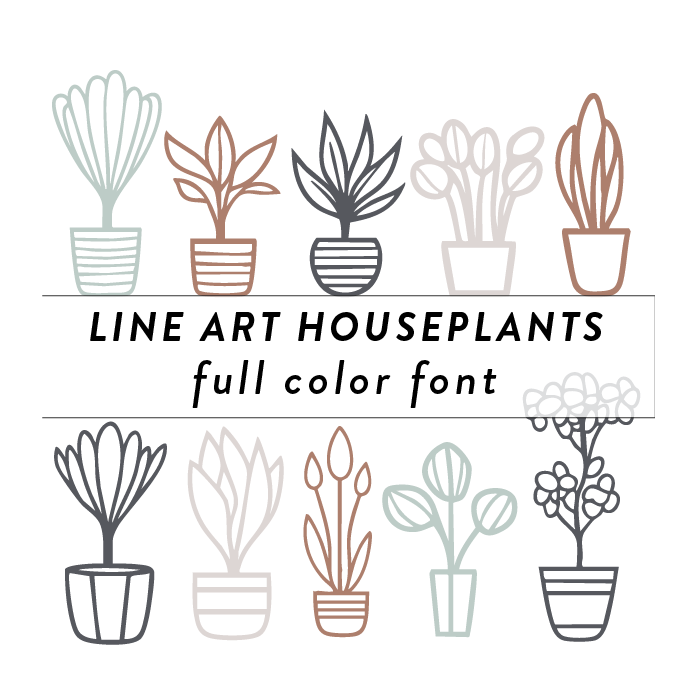
Line Art Houseplants Full Color Font is a modern and artistic font design featuring line art illustrations of various houseplants in full color. This unique font style incorporates elements such as trees, branches, leaves, and flowers to create a visually stunning and nature-inspired aesthetic. Perfect for adding a touch of botanical charm to any design project, this font is ideal for home decor and paper crafts.